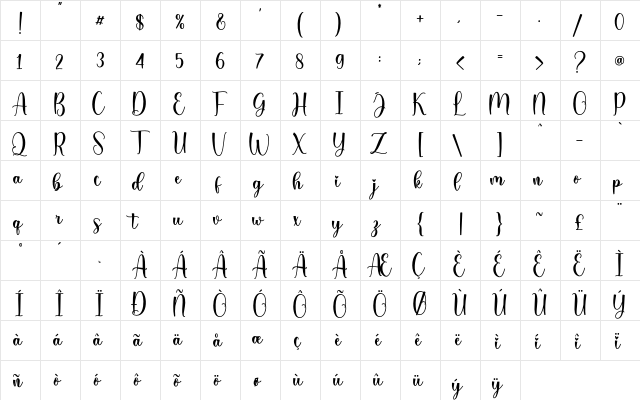
Sayloves_DEMO Regular
Design Context for Sayloves_DEMO Typeface
Sayloves_DEMO is a composed and adaptable typeface that performs quietly and consistently across a wide range of design contexts.